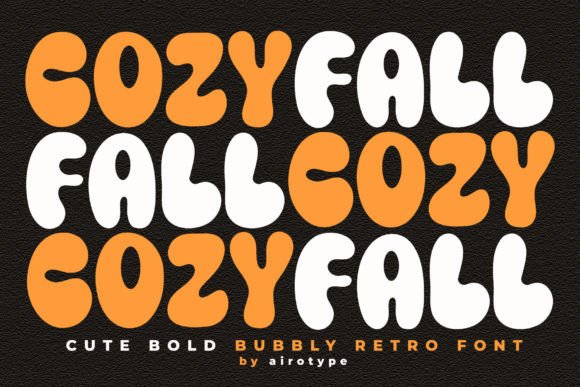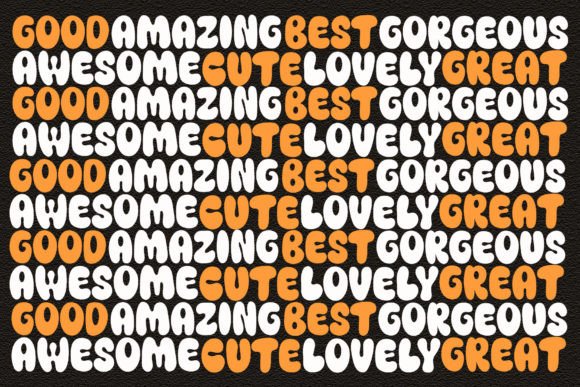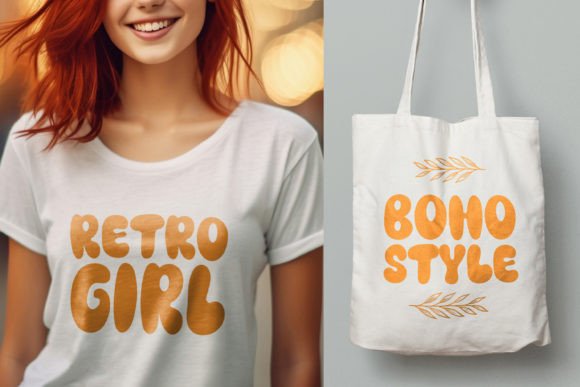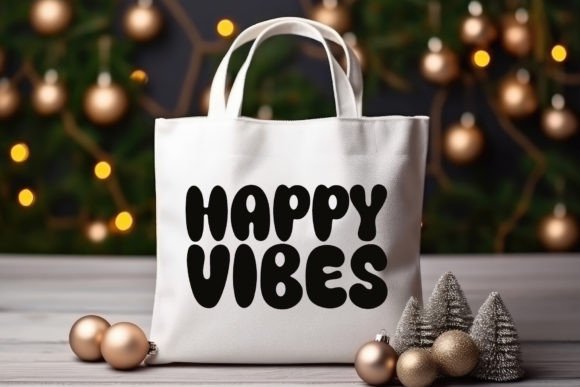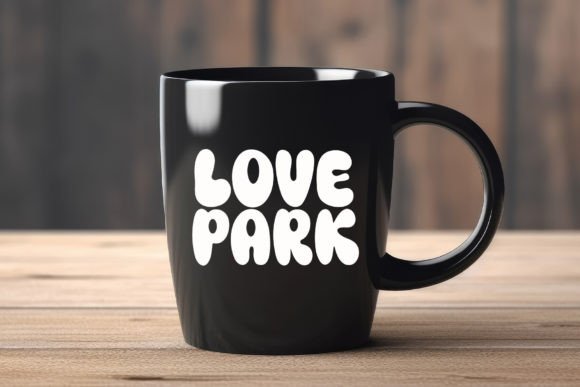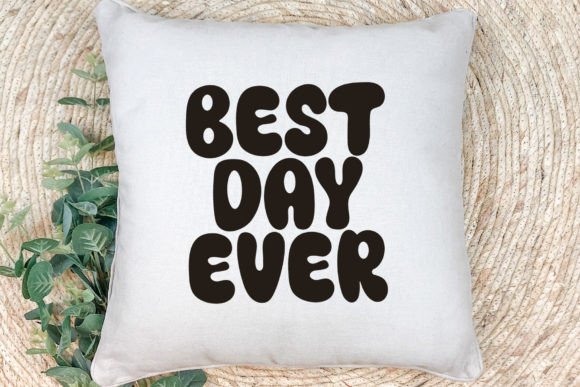
Cozy Fall Font: The Perfect Addition to Your Retro-Style Projects
As the leaves change colors and the weather cools down, we’re reminded of the cozy and nostalgic feelings that come with the fall season. For designers and crafters, this time of year is perfect for incorporating warm and fuzzy elements into their projects. One way to add a touch of coziness to your designs is by using the Cozy Fall font, a cute and bubbly retro font that’s sure to bring a smile to your audience’s faces.
What is Cozy Fall Font?
Cozy Fall is a lovable font that’s perfect for any project with a fun and vintage style. This font exudes vintage, groovy, and playful vibes, making it an excellent choice for designers who want to add a touch of nostalgia to their work. Whether you’re creating logos, crafting, t-shirts, social media graphics, branding materials, stickers, sublimation products, quotes, or anything else, Cozy Fall is sure to be a great fit.
Characteristics of Cozy Fall Font
So, what makes Cozy Fall font so special? Here are a few of its key characteristics:
- Vintage vibe: Cozy Fall font has a distinct retro feel that’s reminiscent of the 1950s and 60s. Its classic look and feel are sure to evoke a sense of nostalgia in your audience.
- Playful and bubbly: This font is not only vintage-inspired but also playful and fun. Its bubbly personality is sure to add a touch of whimsy to your designs.
- Groovy: Cozy Fall font has a groovy, laid-back feel that’s perfect for designers who want to create fun and laid-back designs.
- Highly versatile: This font can be used for a wide range of projects, from logos and branding materials to social media graphics, t-shirts, and more.
Why Use Cozy Fall Font?
There are many reasons why you might want to use Cozy Fall font in your designs. Here are a few:
- Add a touch of nostalgia: Cozy Fall font is perfect for designers who want to create designs that evoke a sense of nostalgia in their audience.
- Stand out from the crowd: This font’s unique, playful personality is sure to help your designs stand out from the crowd.
- Create fun and engaging designs: Cozy Fall font is perfect for designers who want to create fun, engaging, and playful designs that will resonate with their audience.
- Perfect for fall and winter designs: As a font that’s inspired by the fall season, Cozy Fall is perfect for designers who want to create designs that are seasonal and timely.
How to Use Cozy Fall Font
Cozy Fall font is easy to use and can be incorporated into a wide range of design projects. Here are a few ideas to get you started:
- Logos and branding materials: Use Cozy Fall font to create fun and playful logos and branding materials that will help your business stand out.
- T-shirts and apparel: This font is perfect for designing t-shirts, hoodies, and other apparel that’s fun, playful, and nostalgic.
- Social media graphics: Use Cozy Fall font to create social media graphics that are fun, engaging, and perfect for the fall season.
- Stickers and sublimation products: This font is great for designing stickers, sublimation products, and other fun and playful items that are perfect for the fall season.
Cozy Fall font is a fun, playful, and nostalgic font that’s perfect for designers who want to add a touch of coziness to their designs. With its vintage vibe, playful personality, and high versatility, this font is sure to be a great addition to any design project. Whether you’re creating logos, t-shirts, social media graphics, or anything else, Cozy Fall font is sure to bring a smile to your audience’s faces. So why not give it a try and see how it can add a touch of warmth and coziness to your designs?